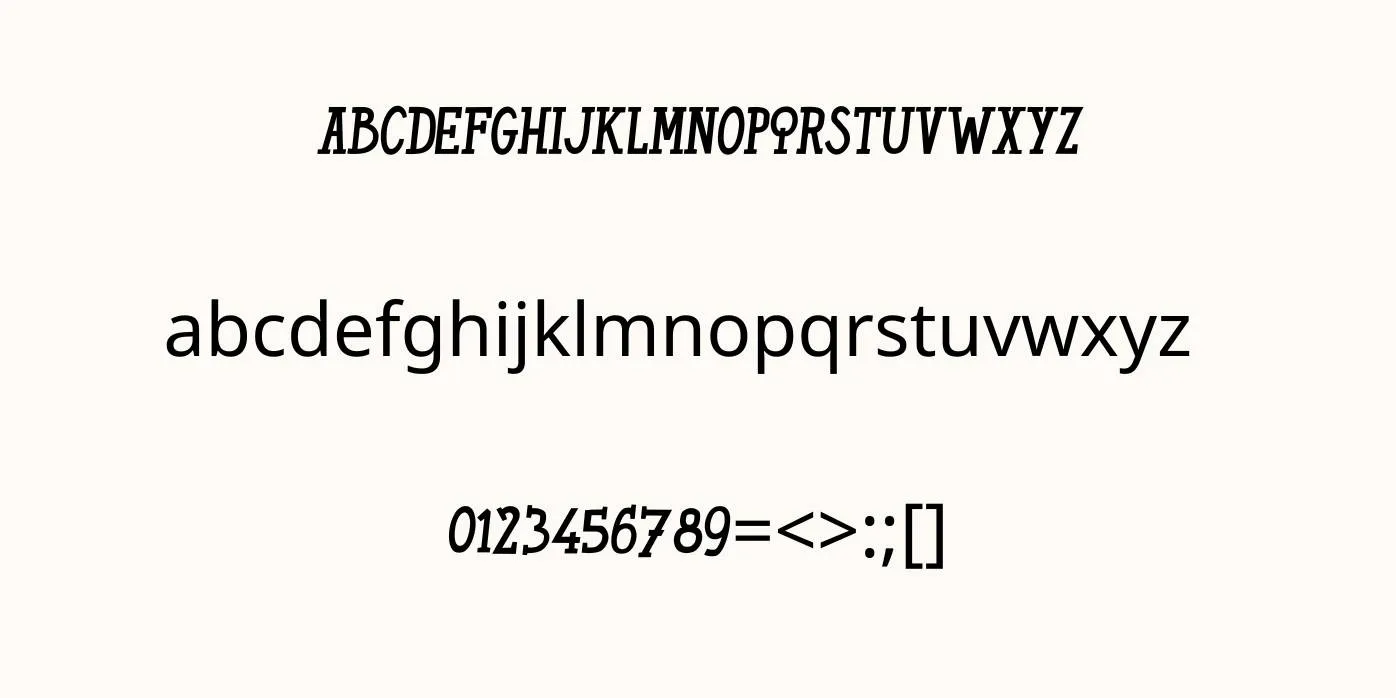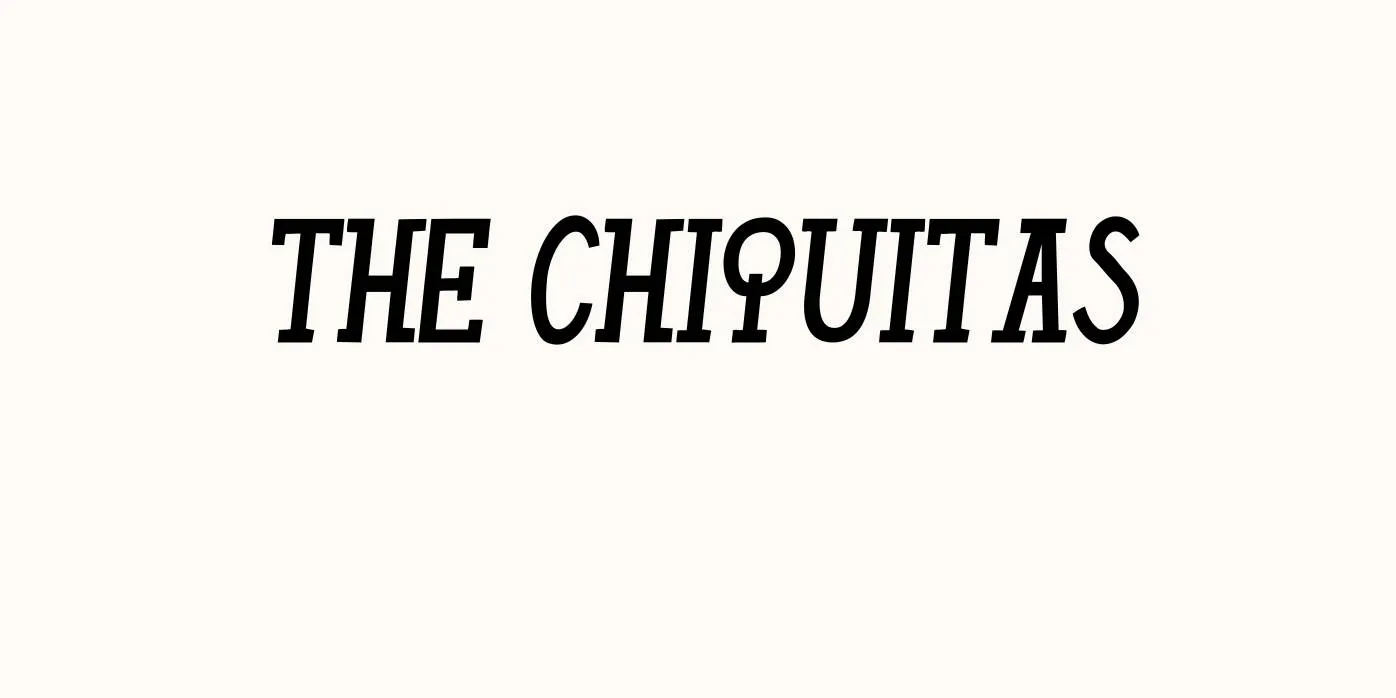
The Chiquitas Font
Chiquitas Font is a fancy font that was designed by Octotype. This font will create a stunning effect on your design and project. Moreover, this texture has the ability to be merged in every type of design and project due to its flexible nature. The online generator tool is also very useful to generate any type of text in just one click.